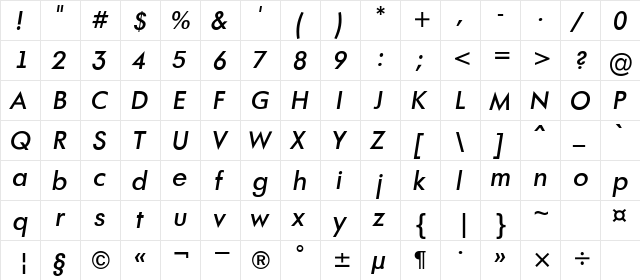
a_FuturaOrtoLt BoldItalic Font Preview
a_FuturaOrtoLt BoldItalic
Design Context for a_FuturaOrtoLt Typeface
a_FuturaOrtoLt channels digital-age aesthetics through its sharp, structured letterforms — ideal for brands that want to signal innovation. The dynamic lean of this cut emphasises speed and emphasis in any layout. The heavy weight commands attention and anchors typographic hierarchies.